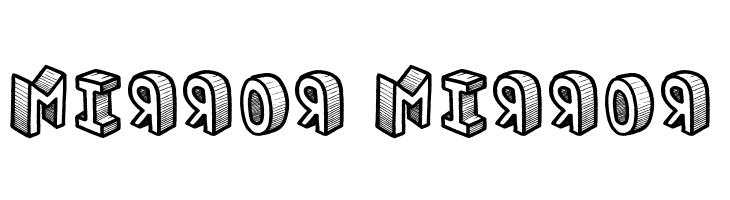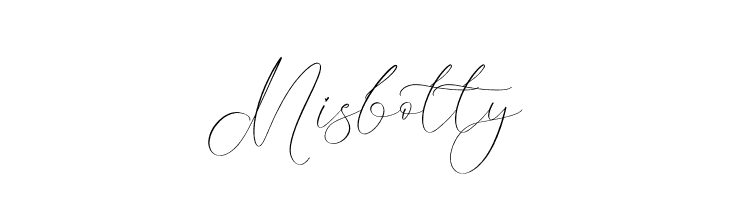
• Mindless Self Indulgence
• Mineral Oil resources
A decorative and abstract font with geometric shapes and lines, ideal for artistic projects.
• Mineral Oil resources
A decorative and abstract font with geometric shapes and lines.
• Minista
A modern, handwritten font with elegant curves and a playful style.
• Minneapolis
A hand-drawn, casual font with an organic and lively appearance.
• Mintlic
A playful and elegant script font with fluid, connected strokes.
• Mirror Mirror
A bold, 3D hand-drawn font with textured hatching and a playful, comic-like style.
• Misbotty
A refined script font with elegant, flowing characters and delicate strokes.
• Missing
A bold, expressive handwritten font with a brush-like texture.
• Mister George
A bold, playful font with thick, rounded characters and a hand-drawn feel.